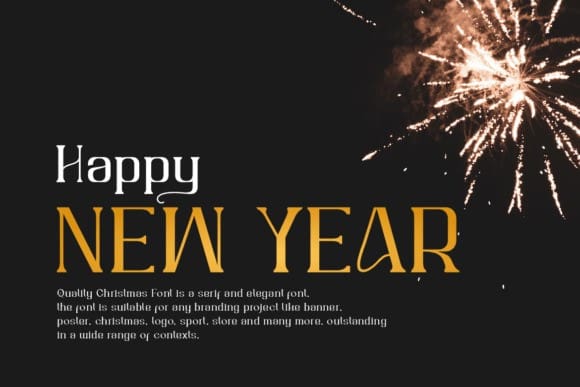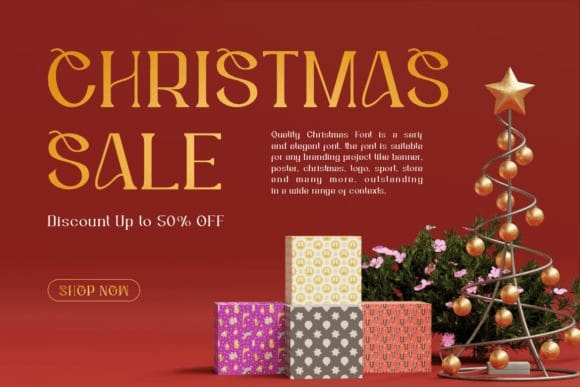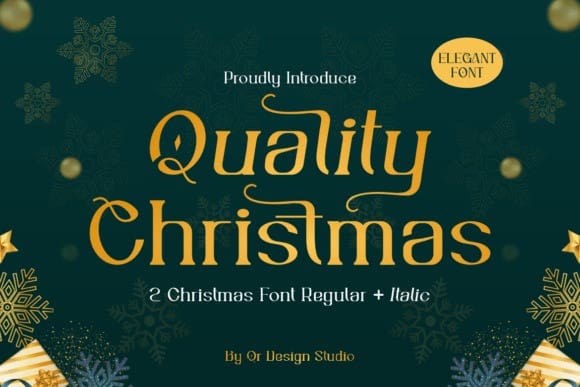
Quality Christmas Font
Quality Christmas Font is an elegant and bold serif font. Fall in love with its incredibly versatile style and use it to create gorgeous wedding invitations, beautiful stationary art, eye-catching social media posts, and much more!